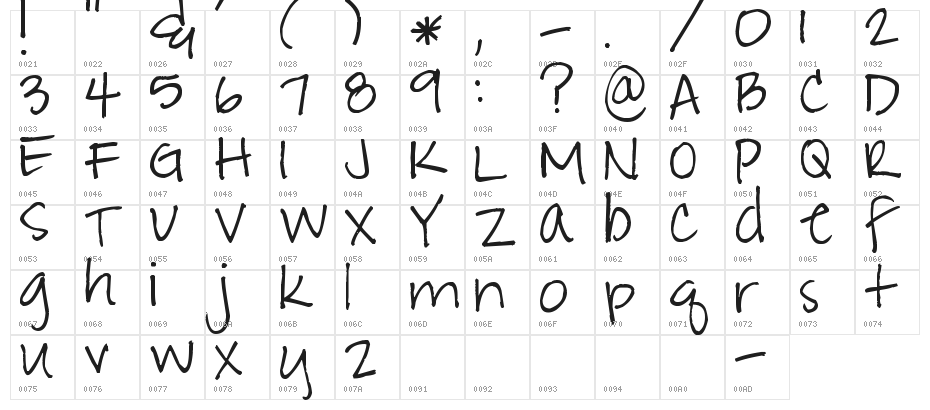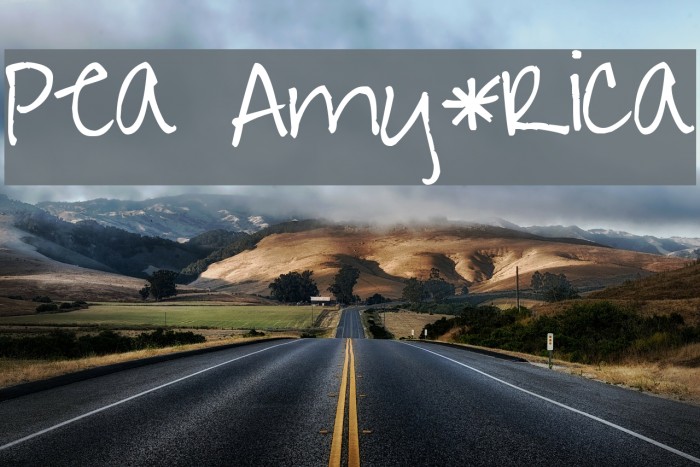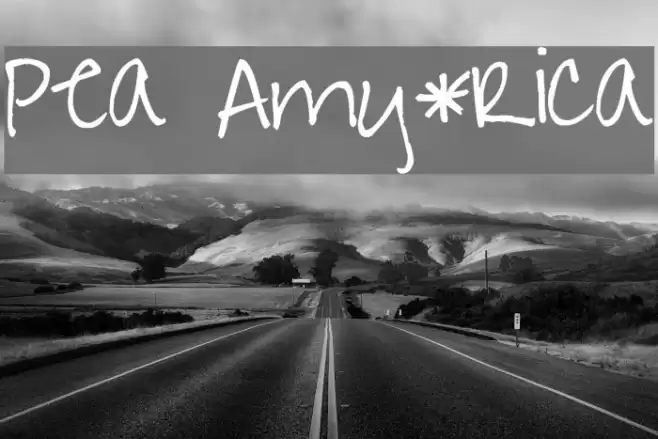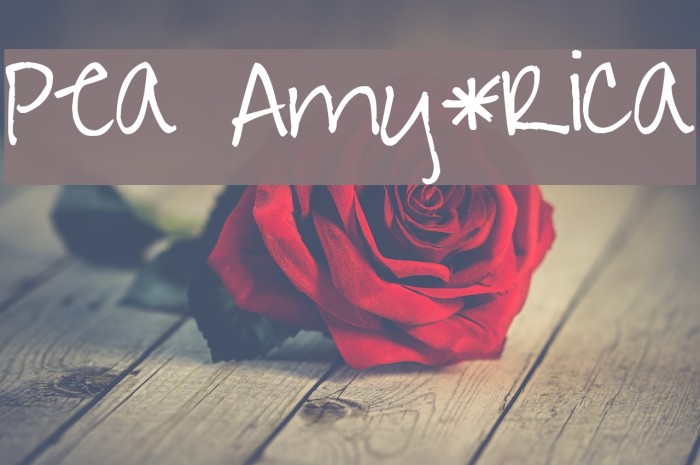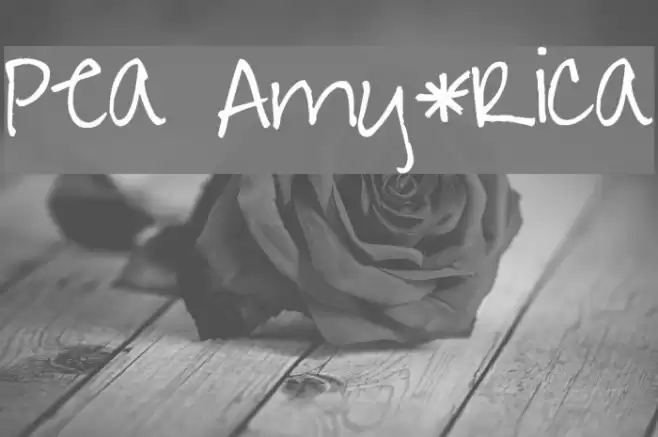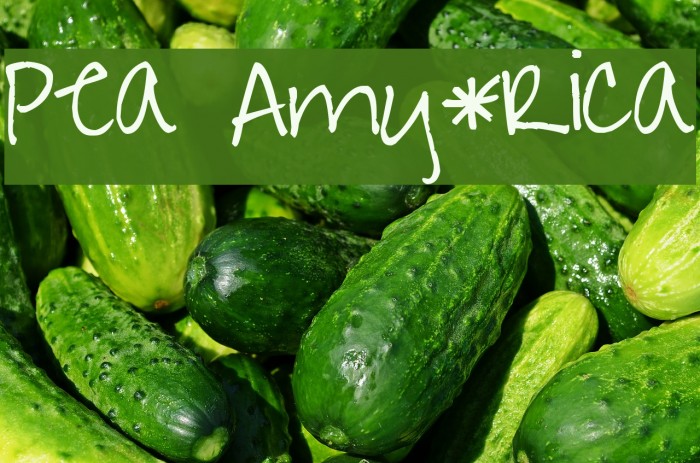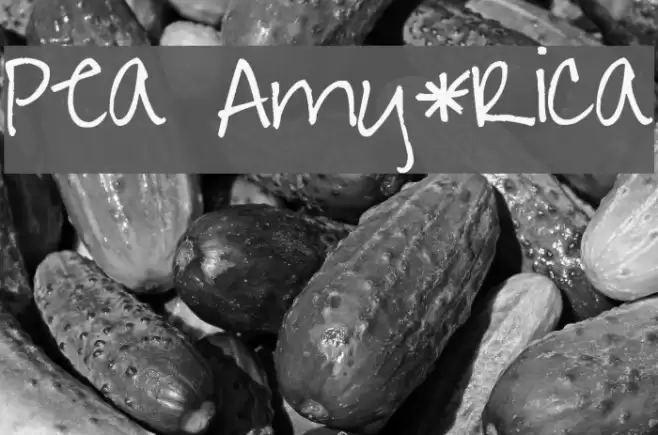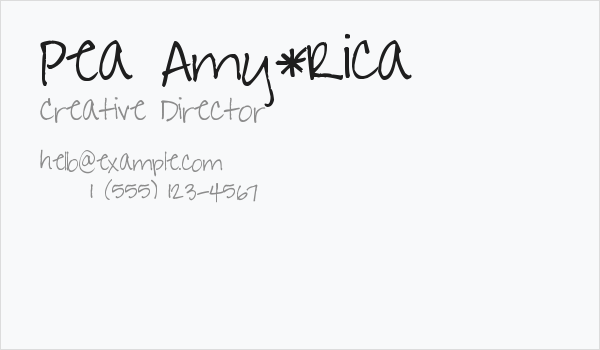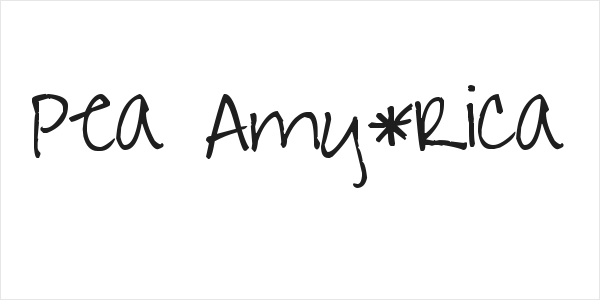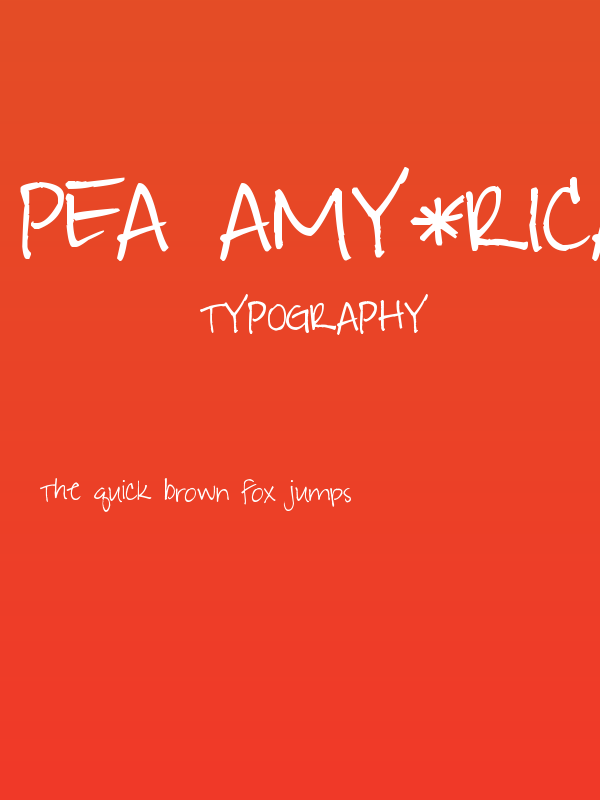
Pea Amy*Rica Font
Pea Amy*Rica Description
This handwritten font exudes a casual and playful vibe, characterized by its irregular strokes and slightly uneven baseline. The letters are crafted with a personal touch, resembling natural handwriting with a touch of whimsy. The uppercase letters are bold and slightly larger than the lowercase, which are more rounded and softer in appearance. Numbers and special characters maintain the same playful style, making the font versatile for creative projects. The overall look is informal and friendly, perfect for adding a personal touch to any design.
Overall StyleCasual, Playful
Use CaseHeadlines, Informal text, Creative projects
Proposed ProjectsIdeal for greeting cards, personal notes, children's books, and casual branding.